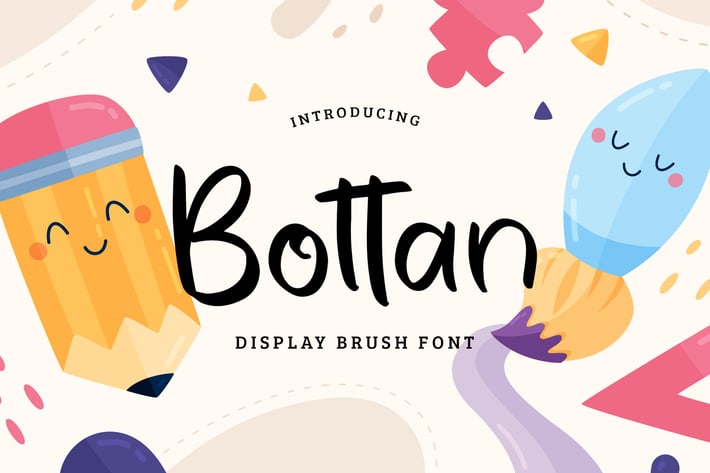
Bottan Display Brush Font
Bottan Display Brush Font is an exciting and extraordinary display font that will make any kid-themed design stand out!
Bottan Display Brush Font is perfect for branding projects, logo, T-shirt designs, book cover design, social media posts, advertisements, product packaging, product designs, label, watermark, invitation, stationery, and any projects.